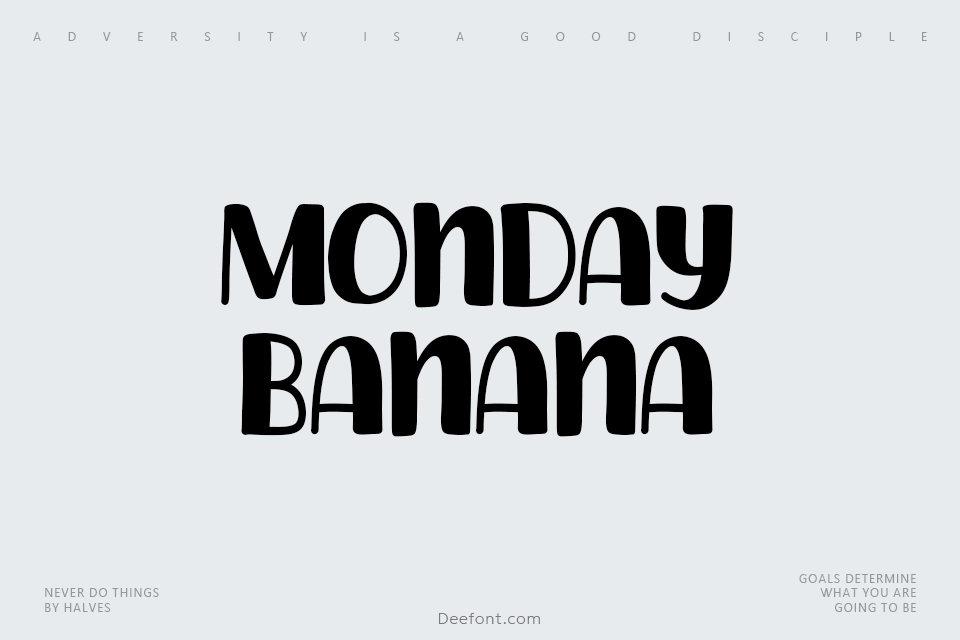
Monday Banana Font
Monday Banana is a playful and bold display font featuring a whimsical, rounded style with a strong presence. The characters are thick and slightly irregular, giving them a hand-drawn, organic feel. With its unique character shapes and vibrant personality, this versatile font is perfect for children's books, playful branding, posters, creative invitations, and any project requiring a fun and engaging visual impact. Its distinctive design makes it an ideal choice for headlines, logos, and decorative applications.